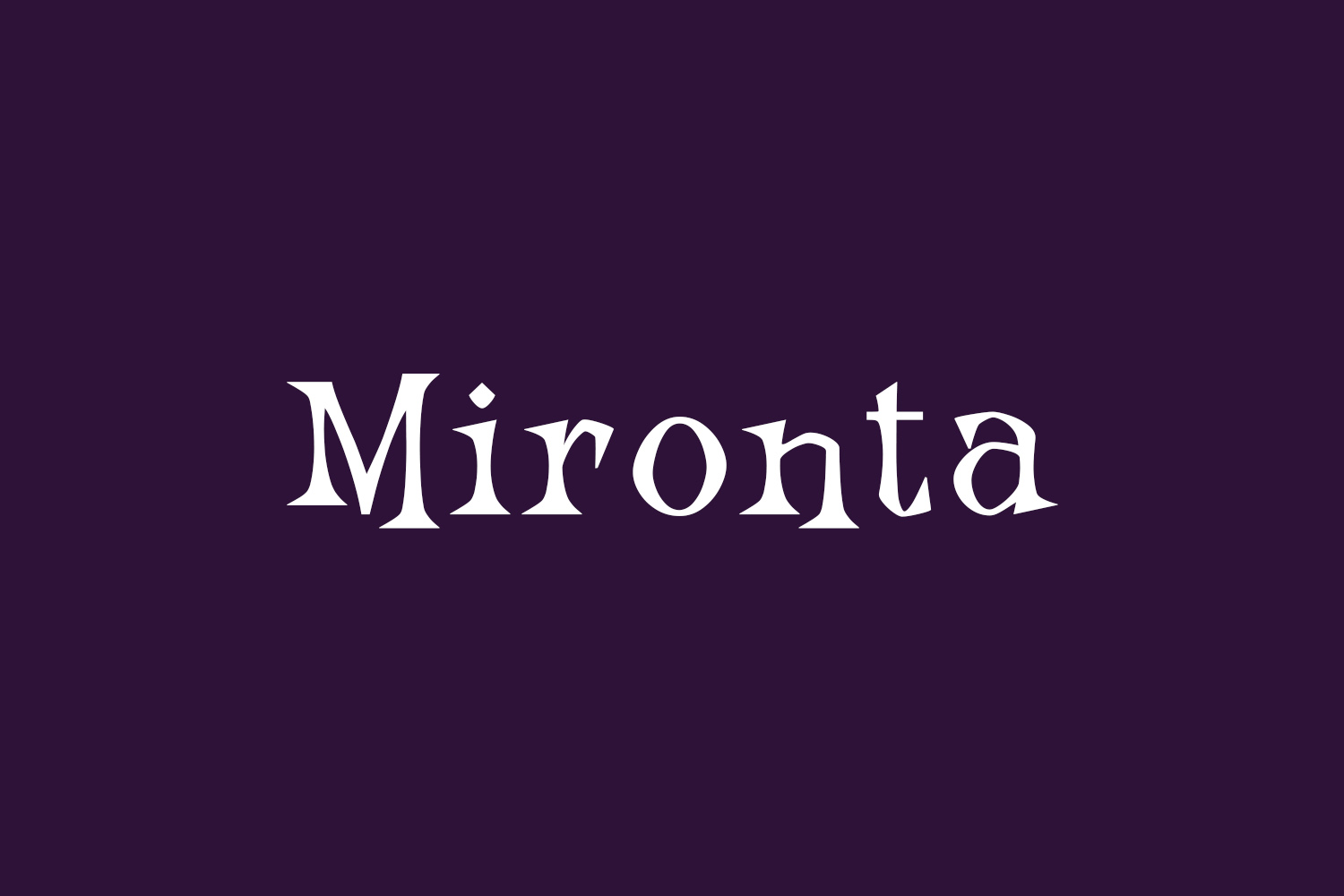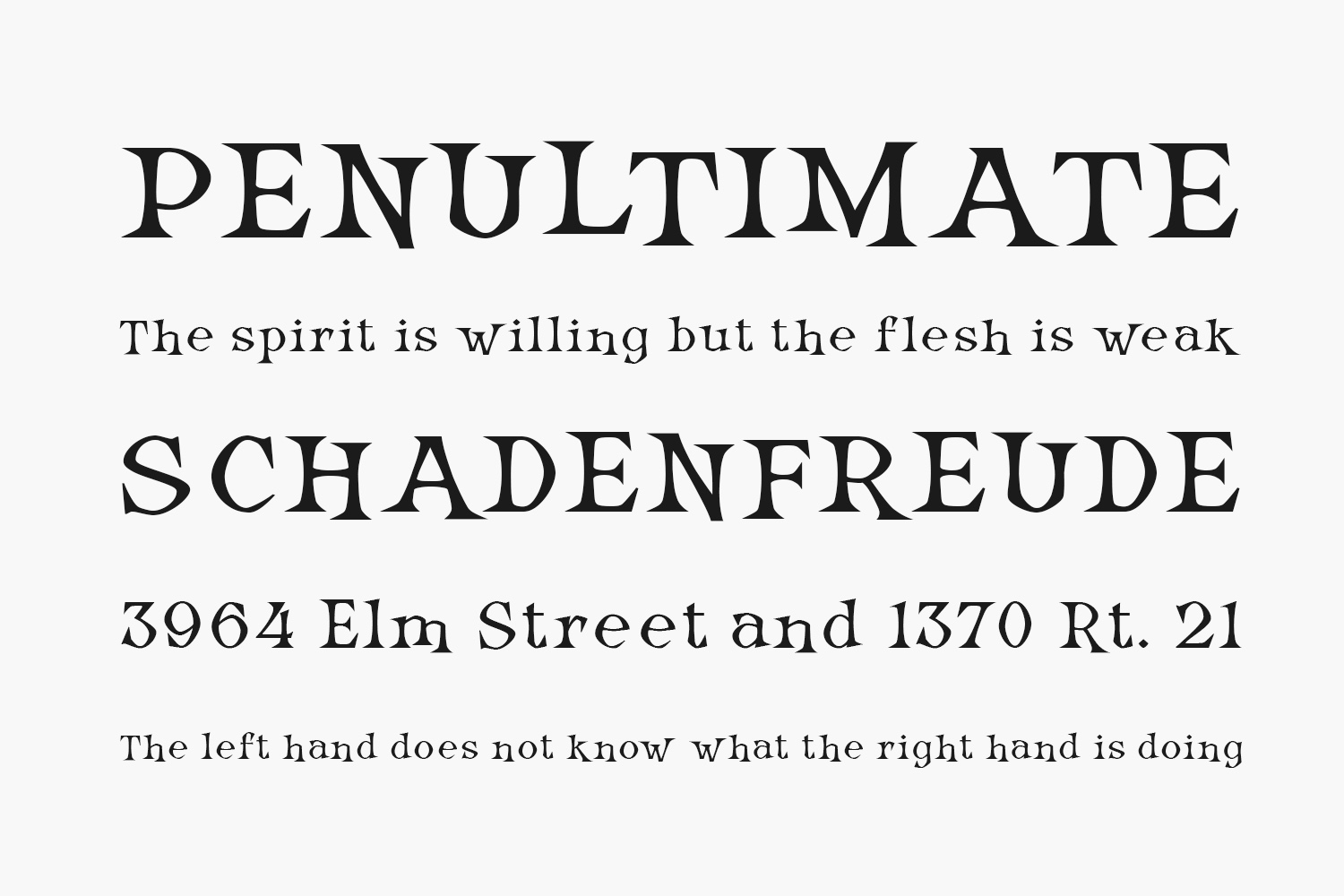
Mironta Free Font is a cool and mysterious display font. Spooky yet fun, this font is perfect for all your Halloween designs. Mironta Free Font was designed by Alit Design and is free for personal use only. Please purchase the full version for commercial use.
Designed by Alit Design